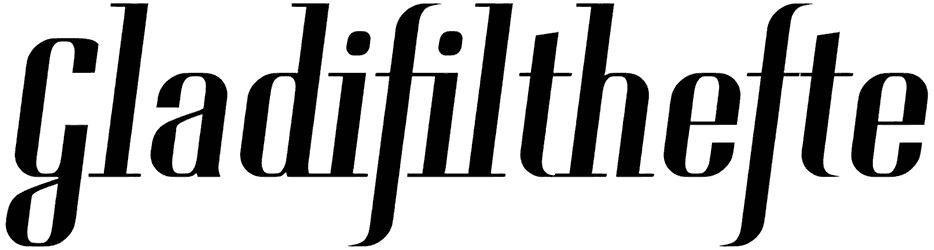
Gladifilthefte Font
Gladifilthefte font, because some characters have cursive endings, can make it special and different. This serif font allows you to stand out from competitors in designing the covers of fashion magazines, t-shirts, invitation cards, labels, and packages. And we suggest you put this elegant and modern font in your download list so that you can use it whenever you need it.